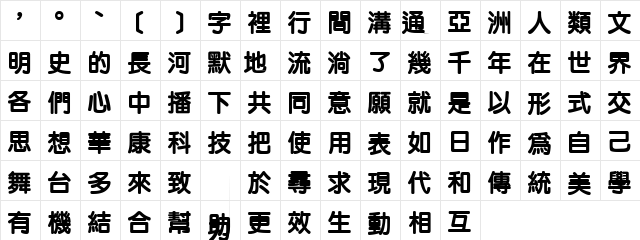
DFLiYuanXBold1B Regular
Design Context for DFLiYuanXBold1B Typeface
DFLiYuanXBold1B offers clean, dependable letterforms without strong stylistic allegiance, making it a practical choice for designers who need flexibility. The heavy weight commands attention and anchors typographic hierarchies.